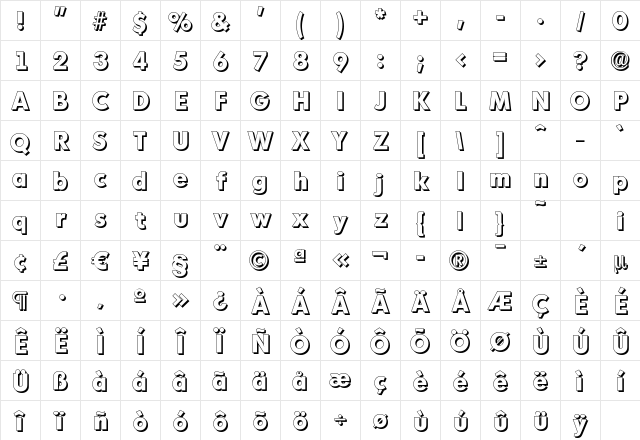
MontrealDropShadow-ExtraBold Regular
Complete MontrealDropShadow-ExtraBold Regular glyph index. Displaying only characters natively supported by MontrealDropShadow-ExtraBold Regular font.
Design Context for MontrealDropShadow-ExtraBold
MontrealDropShadow-ExtraBold is built around its visual character rather than neutral utility - its distinctive forms are designed to make an impression at display sizes. Its bold stroke weight gives it real presence on the page.
Font Pairing: Pair with a clean neutral sans-serif for body copy to let MontrealDropShadow-ExtraBold's character lead without overwhelming the composition.
Pro Tip: Use MontrealDropShadow-ExtraBold exclusively at display sizes - it was designed to be seen, not read at length. Let a neutral companion handle body copy.